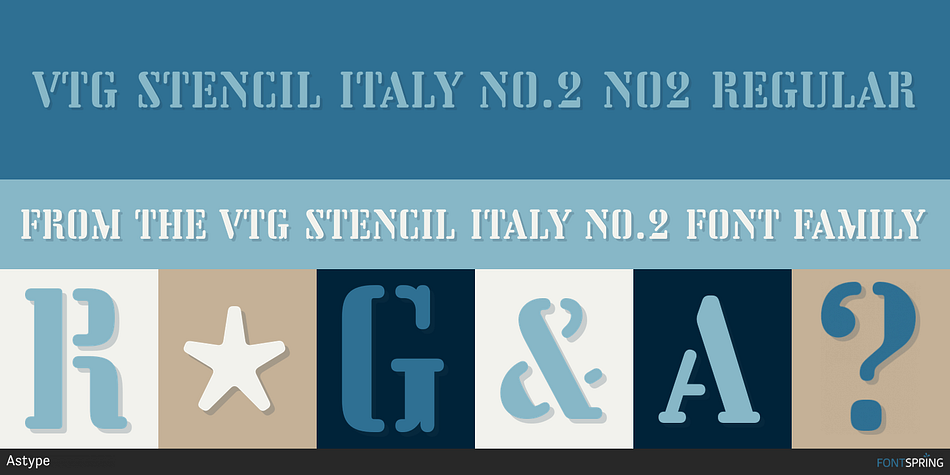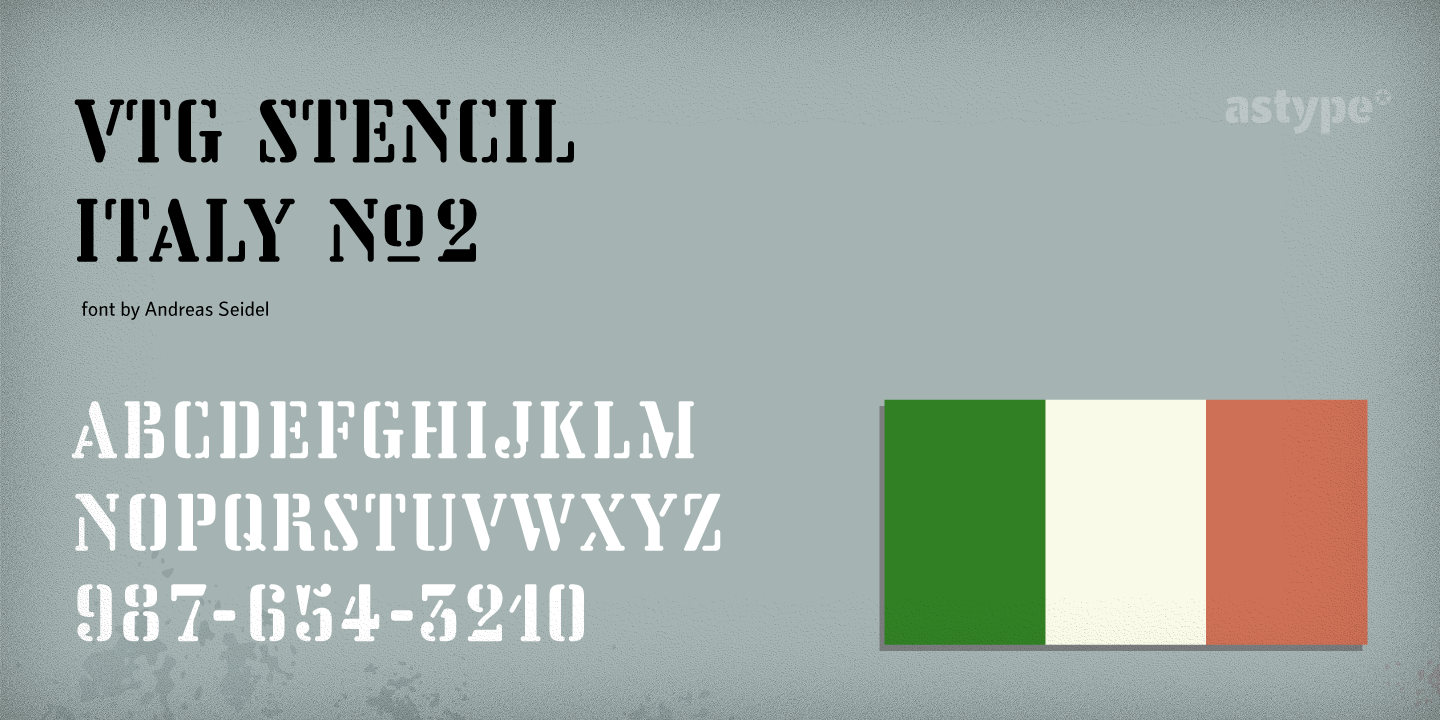
VTG STENCIL ITALY NO.2 NO2 REGULAR
Designed by Andreas Seidel, Vtg Stencil Italy No.2 is a stencil font published by Astype.
he Vtg Stencil fonts from astype are based on real world stencils from several countries. The Italian stencils that I chose as a model for this font are roughly based on classic French stencil letters. However, the Italian stencils are made with a different production technique. The design of the letters is clearly not punch-cut into the plates. Details such as the serifs look bold and clumsy, and when using the stencils as they are meant, with viscous sign paint, smaller details easily fade away. So I took my freedom to design a font close to the original design but adding several typographic tweaks to let it shine, hoping to get closer to the intended design idea of these Italian stencils.
Designer Andreas Seidel